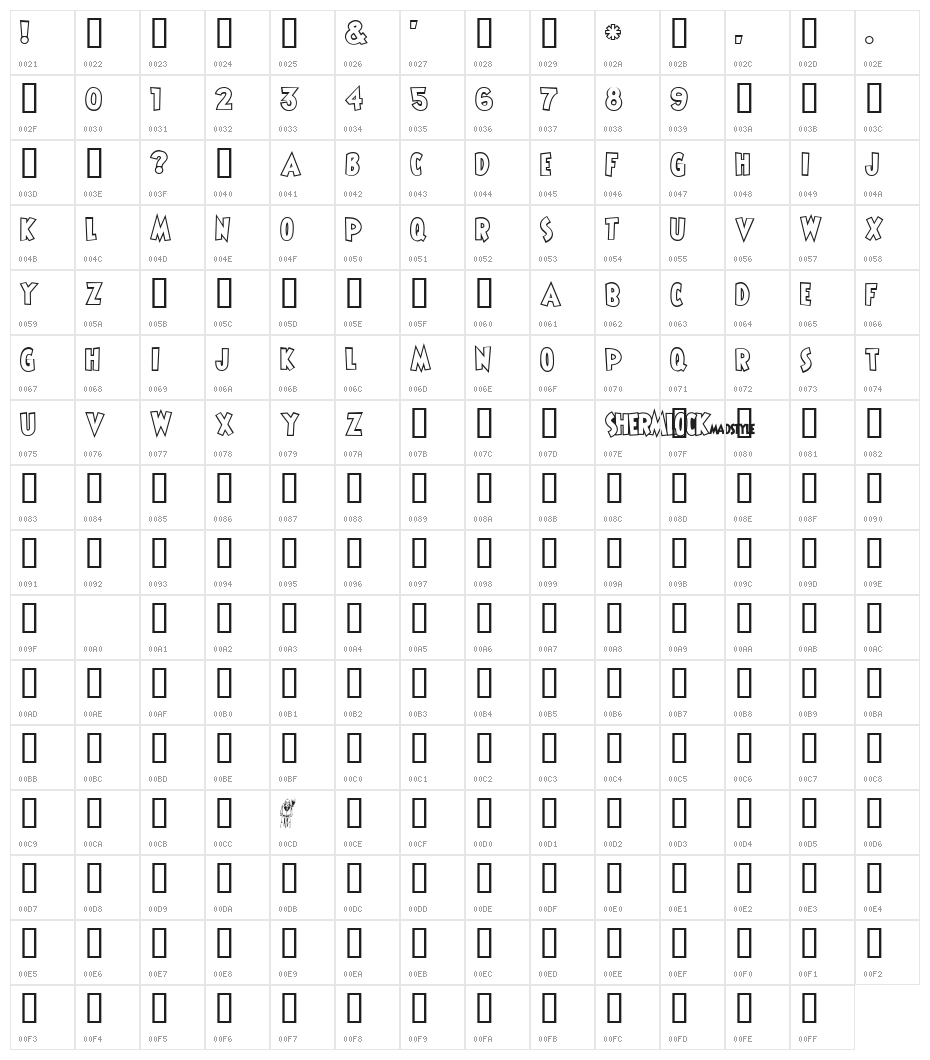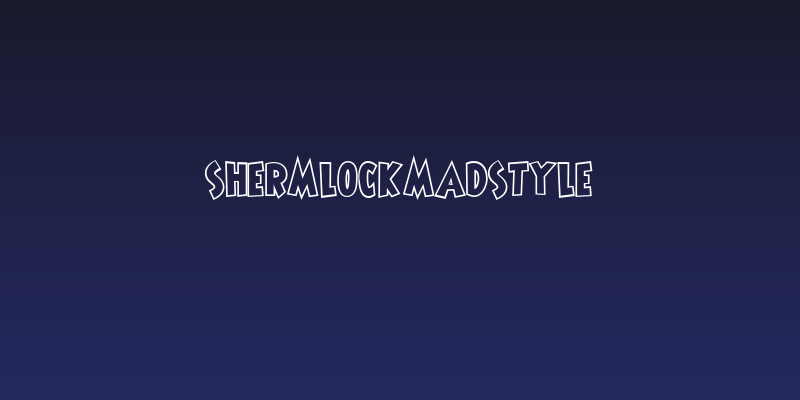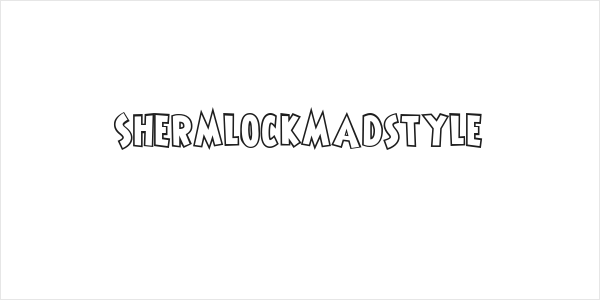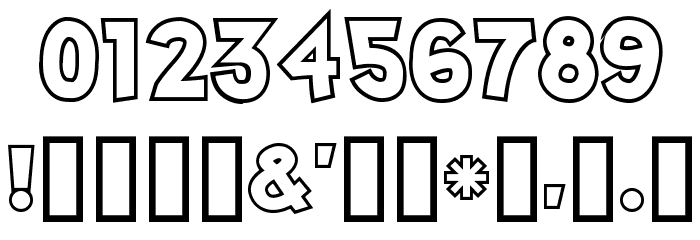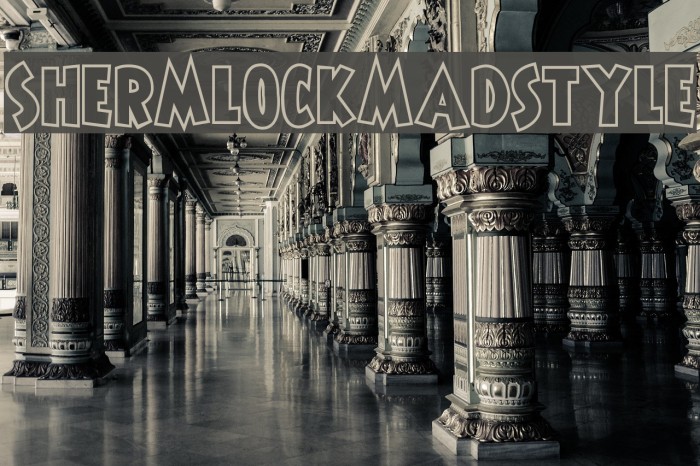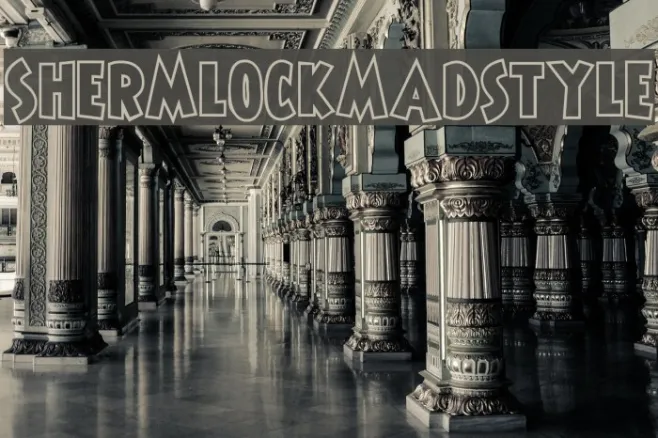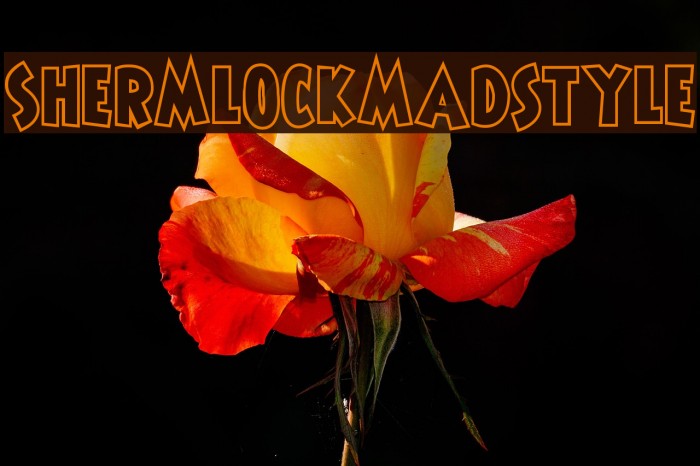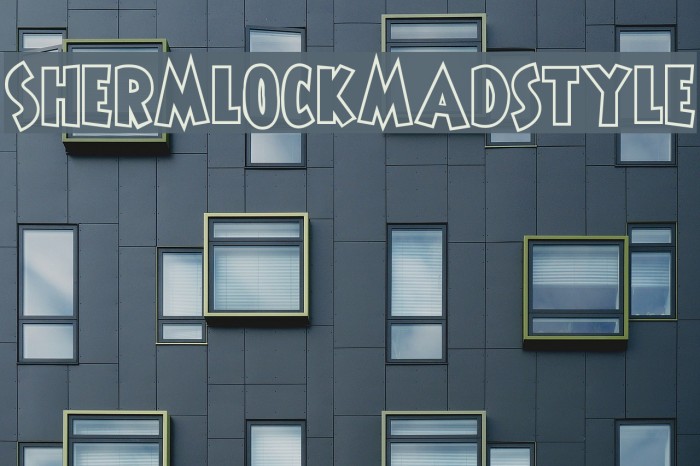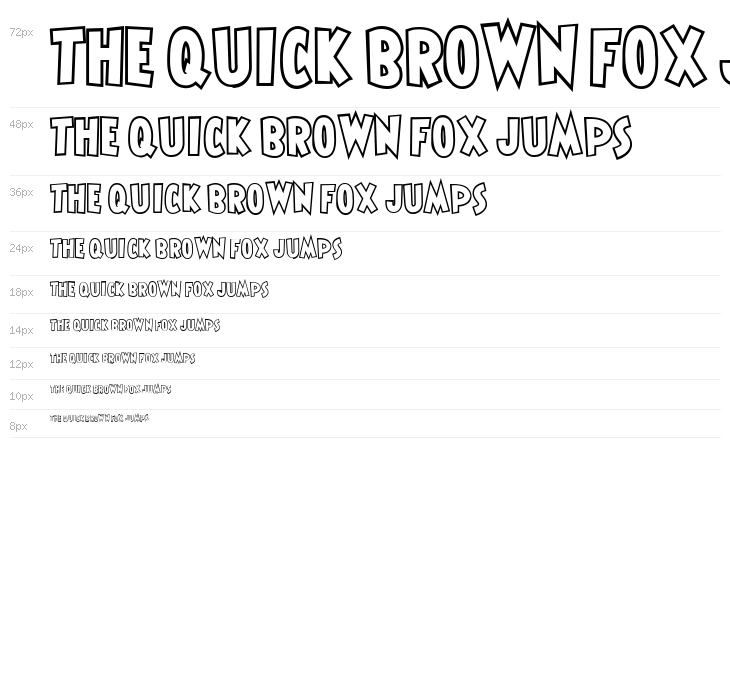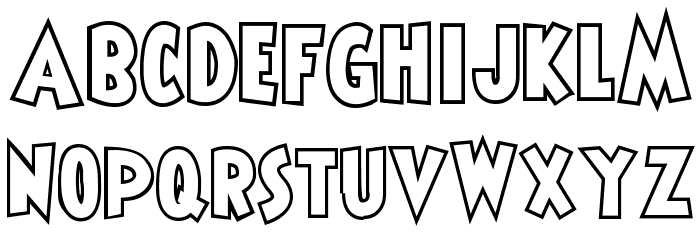
ShermlockMadstyle Font
ShermlockMadstyle Description
This font features a bold, playful design with a cartoonish flair, characterized by thick outlines and exaggerated geometric shapes. The uppercase letters are particularly striking, with angular forms and a sense of movement that adds a dynamic quality. The lowercase letters maintain this playful aesthetic, ensuring consistency across the typeface. Numbers and special characters are designed with the same boldness, making them stand out effectively. The overall style is eye-catching and suitable for projects that require a fun, energetic vibe.
| Overall Style | Playful, Cartoonish, Energetic |
| Proposed Projects | Ideal for children's books, comic strips, playful branding, and eye-catching posters. |